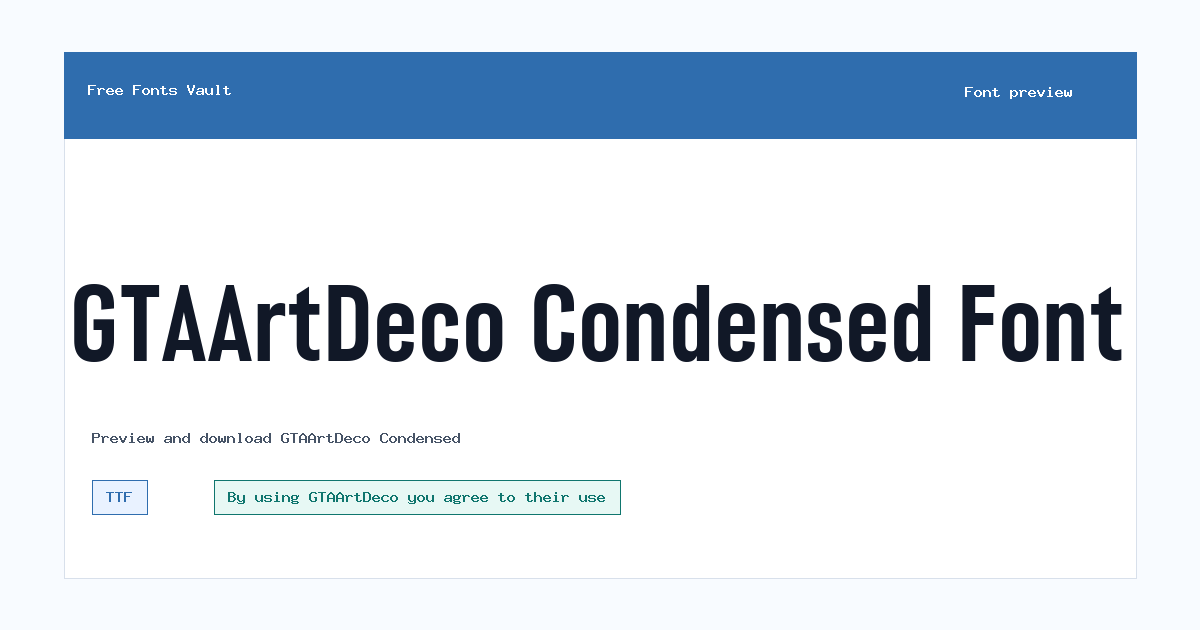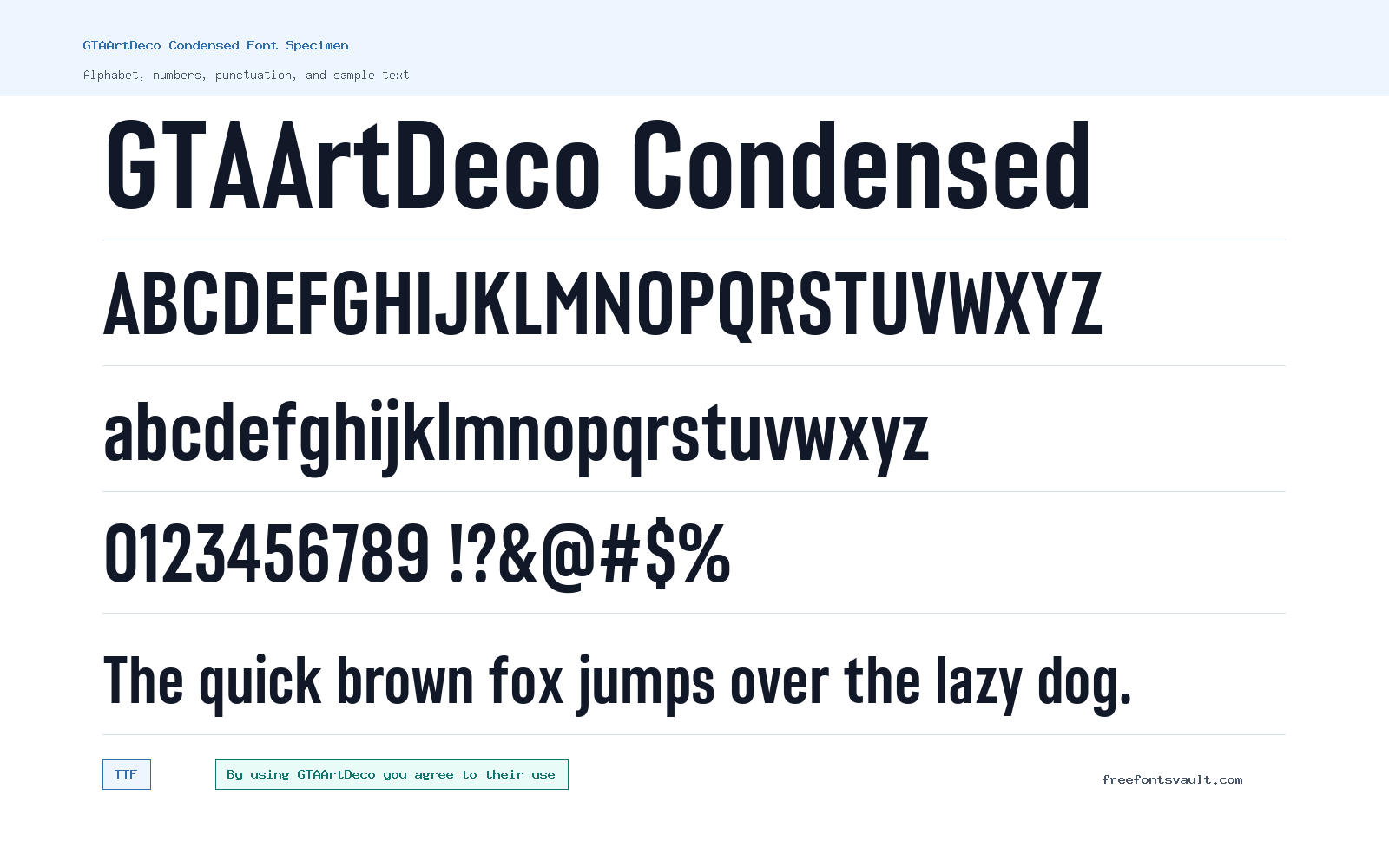
GTAArtDeco Condensed
- Designer Colophon Foundry
GTAArtDeco Condensed font.
GTAArtDeco Condensed is a bold, narrow display font associated with GTA 6 visual branding. Its tall condensed shapes make it useful for previewing short, high-impact words, but its license is highly restricted.
About GTAArtDeco Condensed
GTAArtDeco is described by public GTA reference pages as a typeface created for Rockstar Games and connected with GTA 6 marketing and website branding. The Condensed version shown here is the bold condensed style, supplied as a TTF file with a 700 weight. It has a compact, vertical look that suits headlines, logo-style mockups, title cards, and other short text previews where space is tight and the lettering needs to feel strong.
- Bold condensed TTF style with 700 font weight
- Display-focused letterforms suited to short titles and compact headline previews
- Compact width makes it useful for studying tight title treatments while keeping license limits front and center
- Short title previews, fan-reference comparisons, and typography study
- Testing condensed bold lettering in mockups where licensing is already cleared
Colophon Foundry is named as the designer/foundry in the local font details, and public reference pages also connect GTAArtDeco with Colophon Foundry and Rockstar Games.
What style is shown here?
This page focuses on the bold condensed style of GTAArtDeco, with a 700 weight.
Who designed GTAArtDeco Condensed?
The local font details name Colophon Foundry as the designer and foundry. Public GTA reference pages also describe GTAArtDeco as created by Colophon Foundry for Rockstar Games.